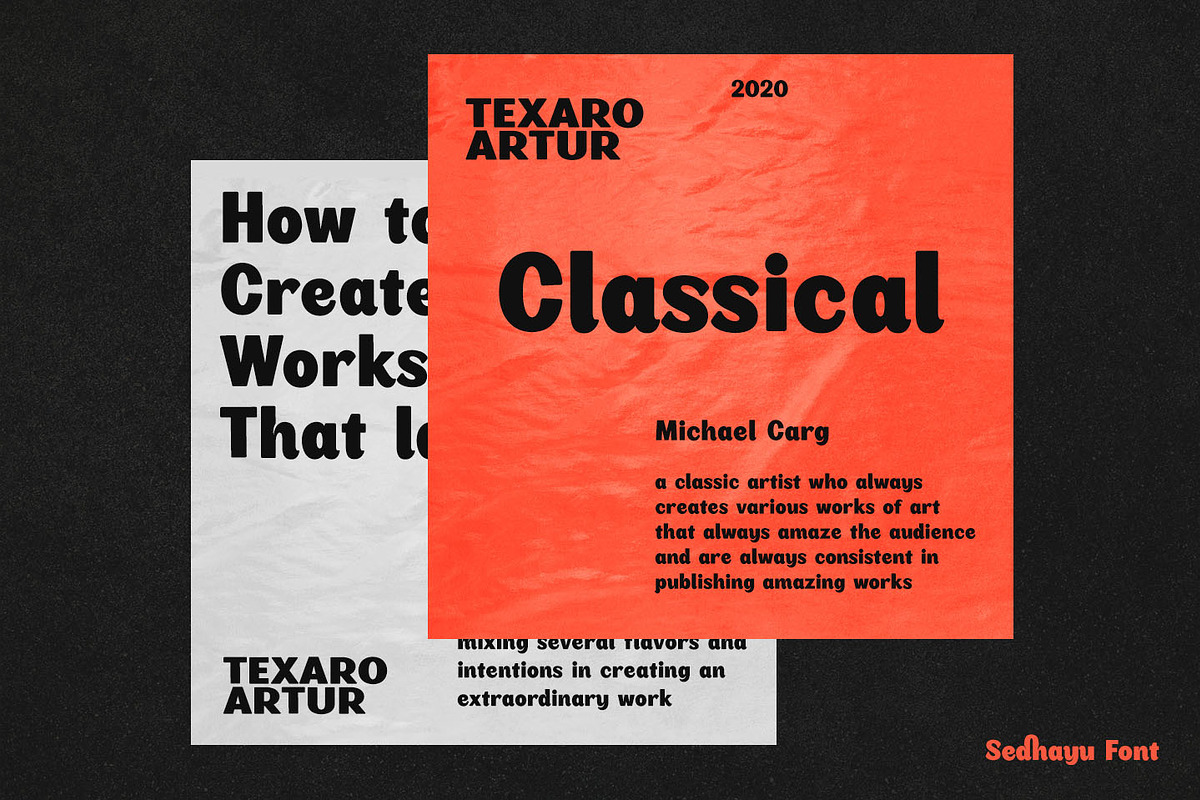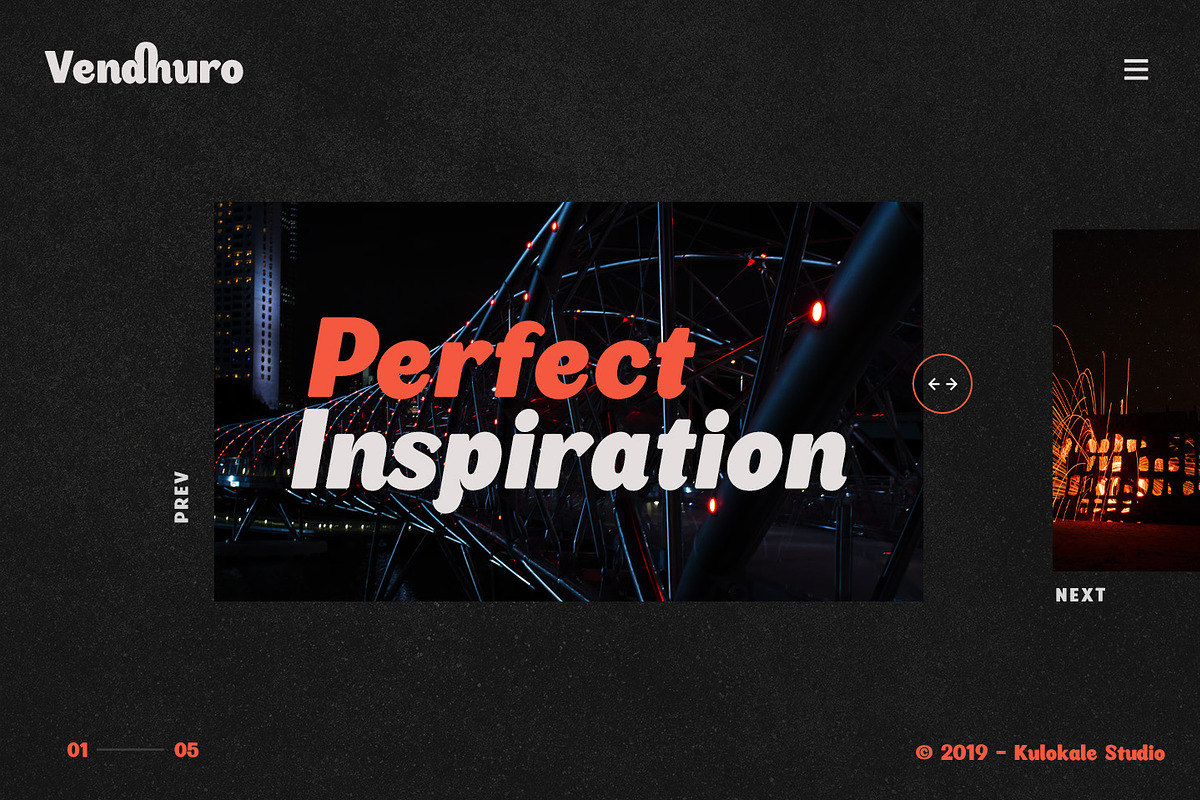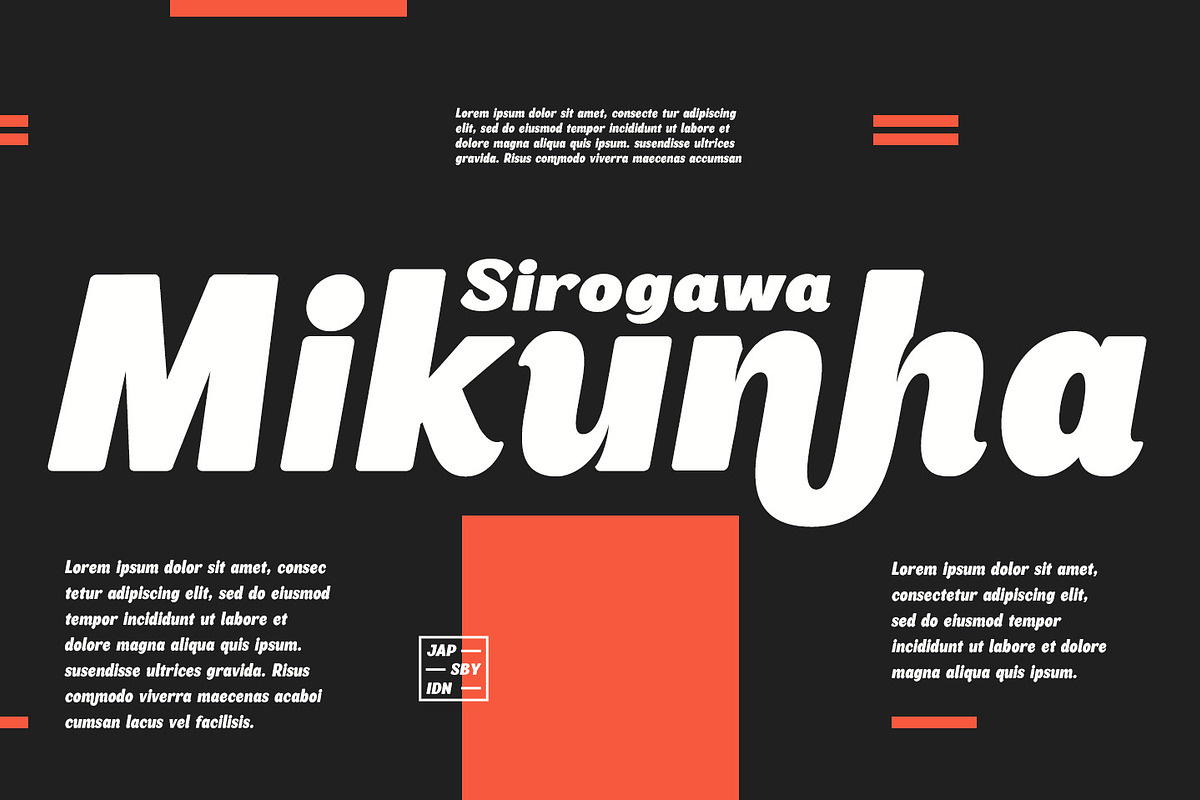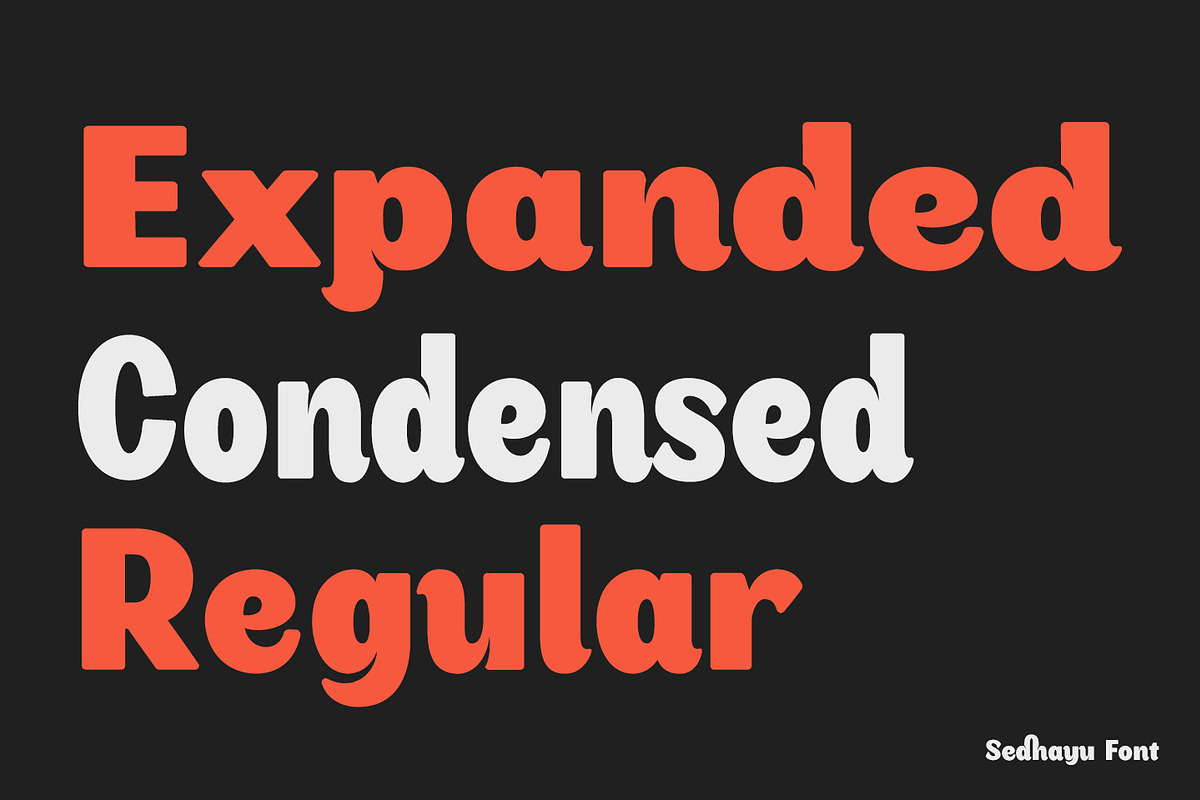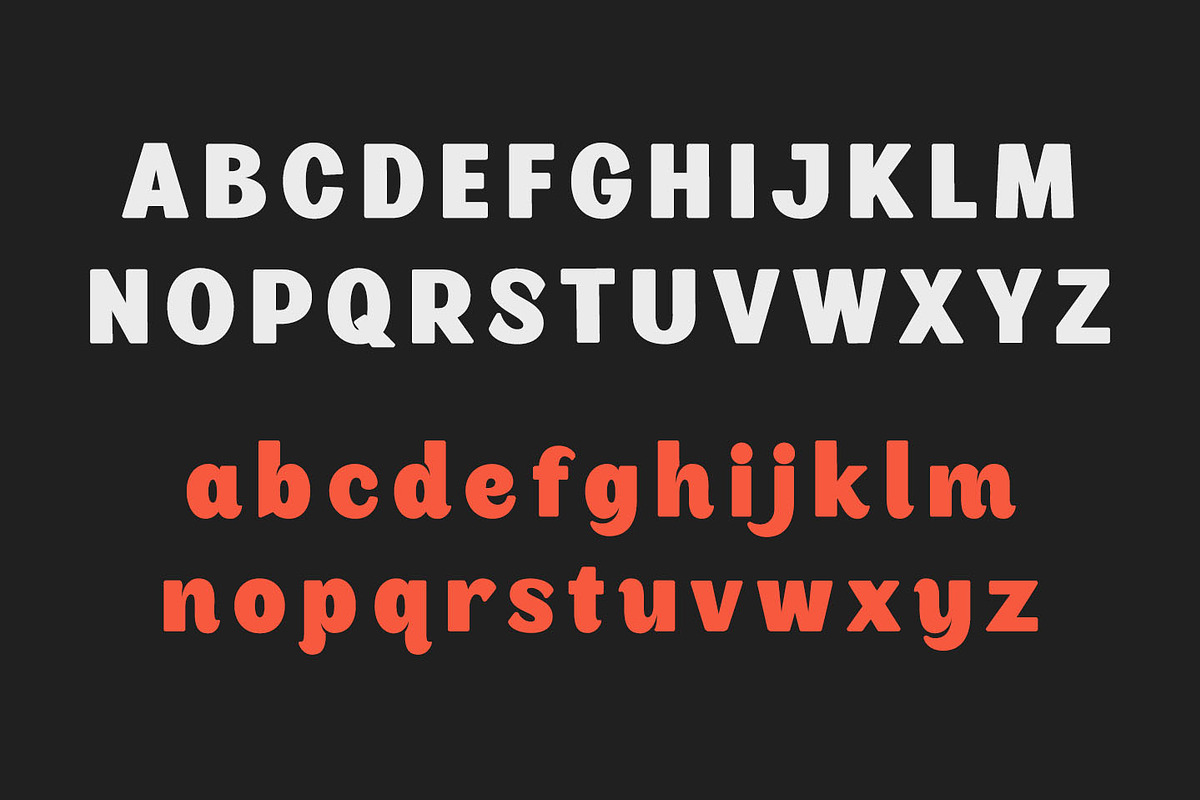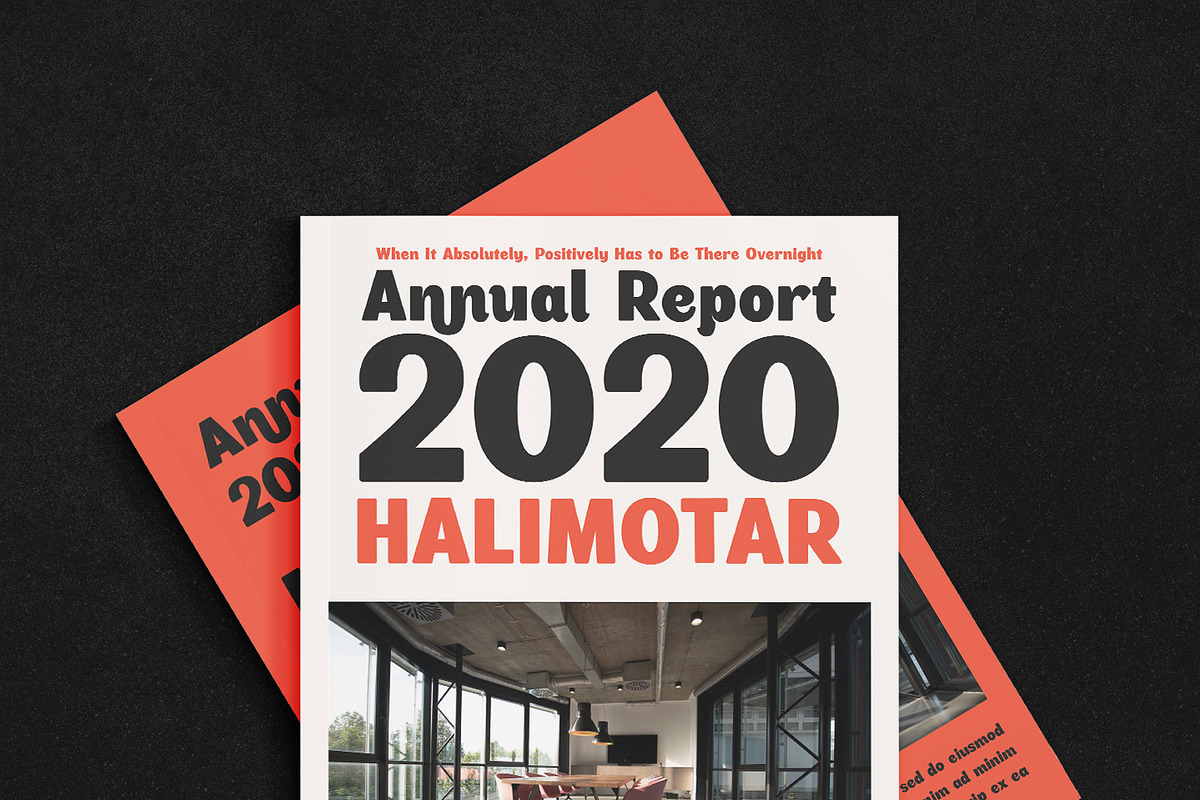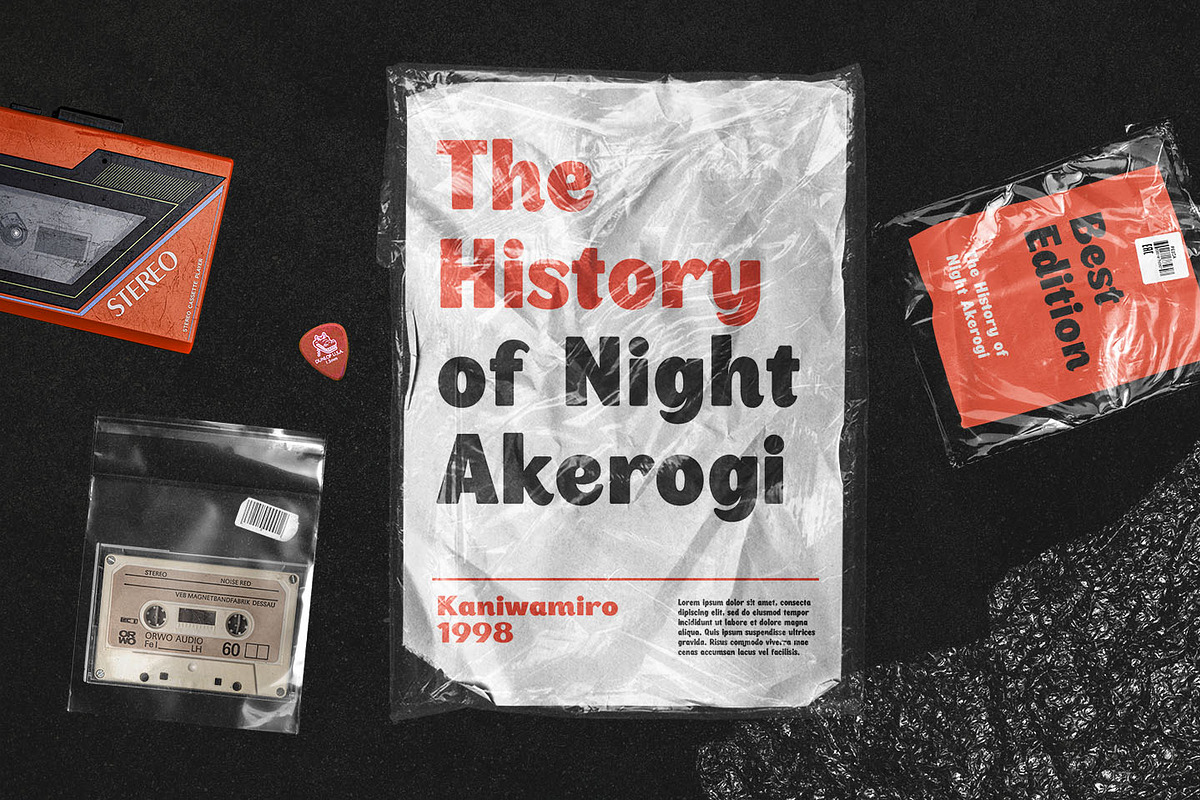
Sedhayu Font Family
Sedhayu is a modern and elegant sans-serif font. Sedhayu is well-suited for advertising, branding, logotypes, packaging, titles, headlines and editorial design.
- Sedhayu includes Capital and Lowercase letters, Alternates, and Ligatures
Sedhayu Font Family by Kulokale fits naturally into Branding, posters, packaging, typography.